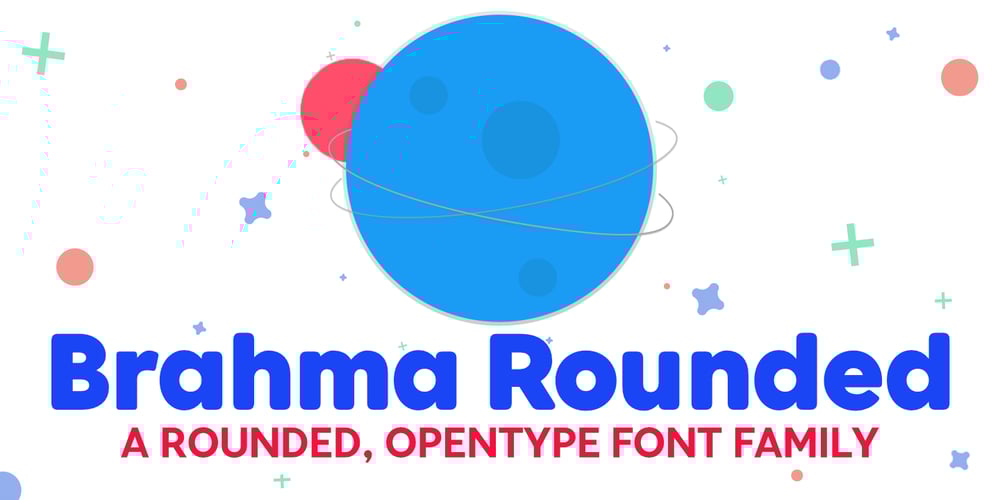
Brahma Rounded
Brahma Rounded font
Brahma Rounded Font Family was designed by Dar Meyer and published by Tall Chai. Brahma Rounded contains 9 styles and family package options. Brahma Rounded is a modern geometric rounded sans-serif font family with weights ranging from Thin (100) to Black (900). It is a sibling of the Brahma font family.Features: Available in 9 weights Over 550 glyphs supporting extended Latin Ideal for display texts: Titles, Logos and Headlines etc. Perfect for branding and rebranding Supports OpenTypes features like Ligatures and Stylistic Alternates Tabular Numerals included Symbols for 10 major currencies including Bitcoin provided in all weights Description:The name comes from Brahmā who is known as the god of creation. And manifesting the same spirit, the Brahma font family focuses on modern creativity.With its smooth and polished curves, Brahma Rounded provides friendly, casual vibes to all its characters.Every character effortlessly integrates with current design standards and interfaces. The fonts are professional yet have a hint of informal personality in them. This makes Brahma Rounded perfect for use in modern apps and websites.Brahma Rounded is built for the influencing, designing and marketing squads. It has a trendy geometric characteristic which is ideal for any branding and rebranding.Brahma has lot of OpenType features (like ligatures and tabular numerals) and the Extended Latin character set supports over a hundred languages.Start Creating!